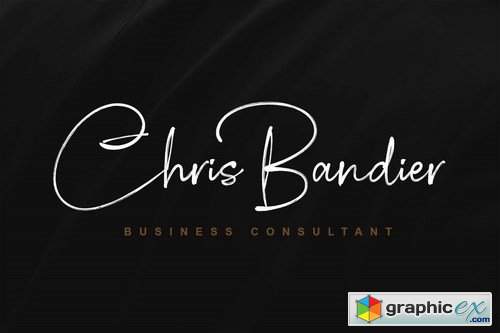
Hamsterlove
Hamsterlove Font is signature brush font. Perfect for any purpose like trademark, logo name, photography, quotes and other. Make your signature more elegant and great